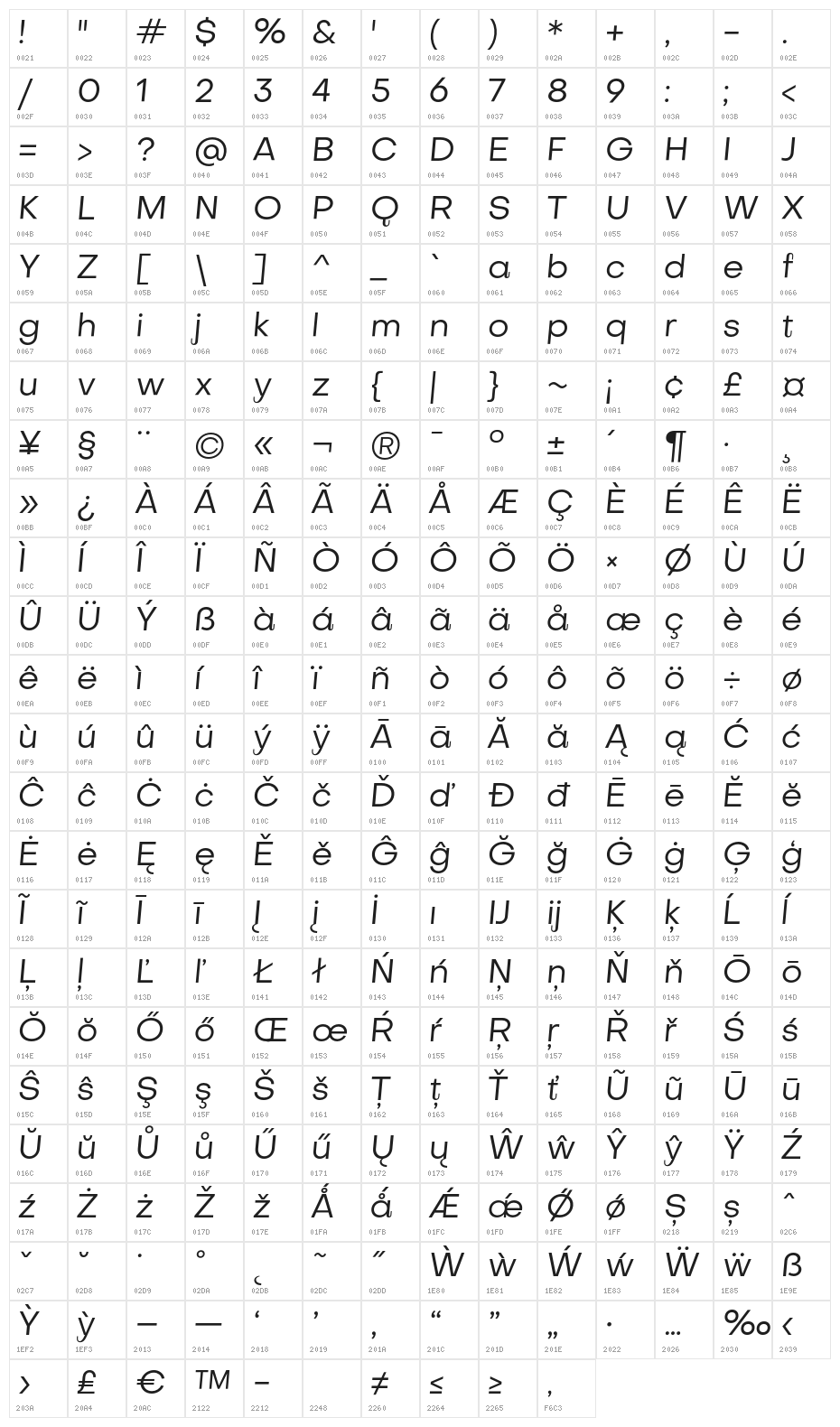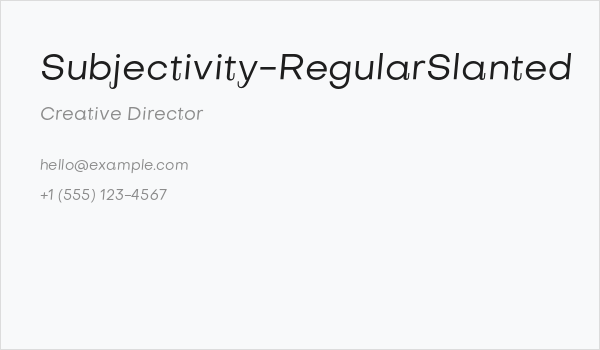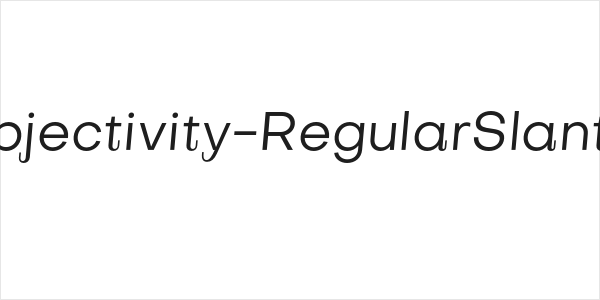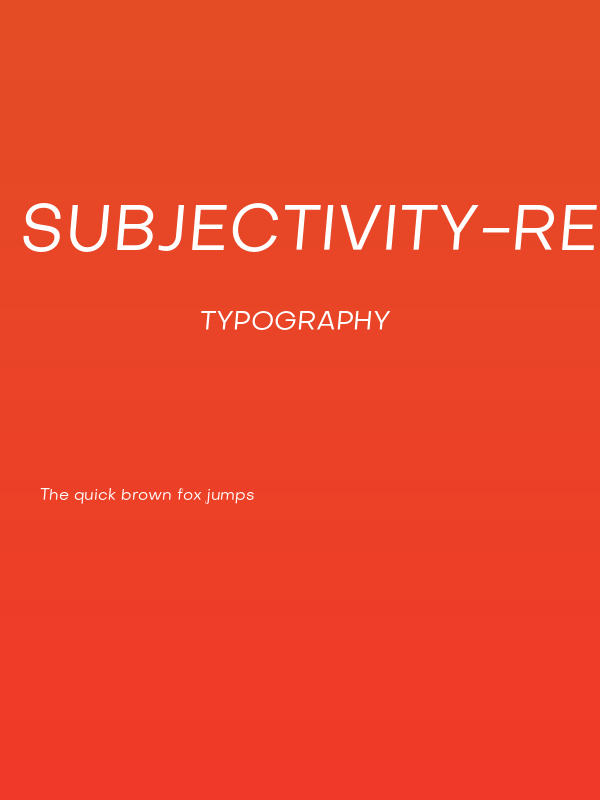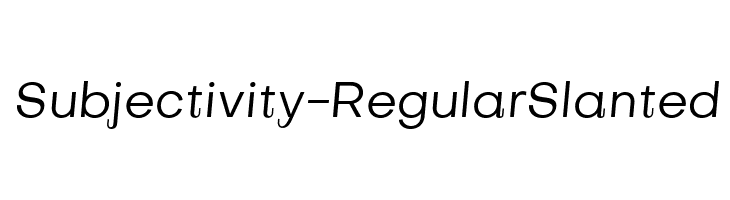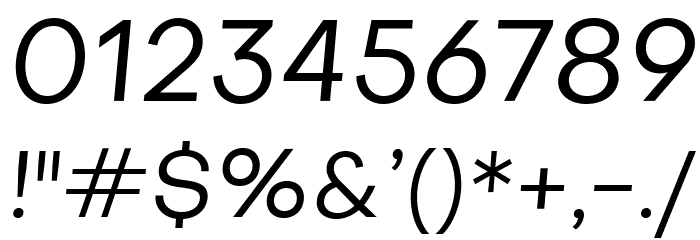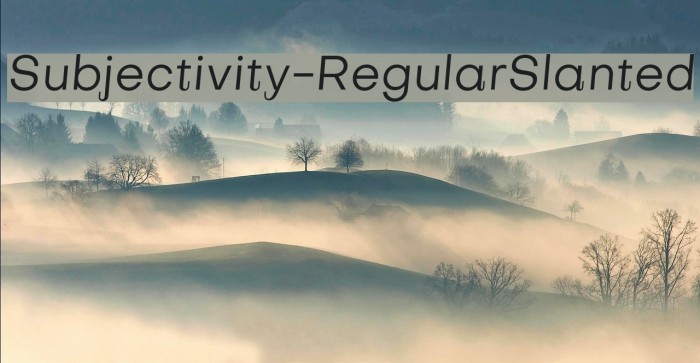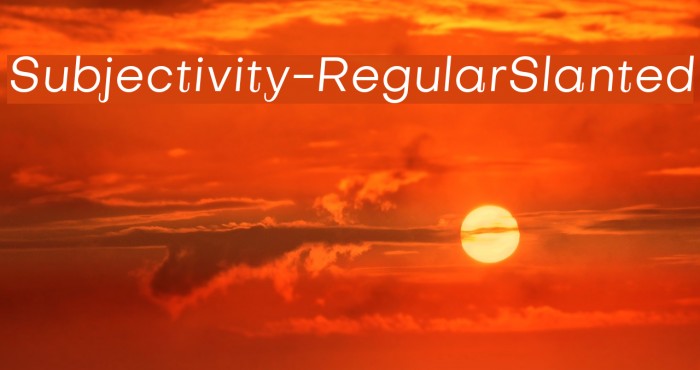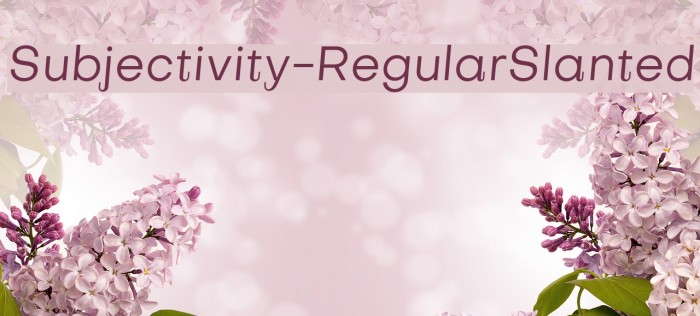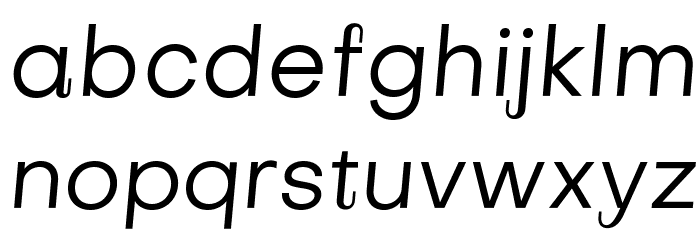
Subjectivity-RegularSlanted Font
Subjectivity-RegularSlanted Description
This font features a clean and modern sans-serif style with a slight slant, giving it a dynamic and forward-moving appearance. The characters are evenly spaced with a consistent stroke width, providing a harmonious and balanced look. The uppercase letters are bold and assertive, while the lowercase letters maintain a friendly and approachable feel. The numerals are clear and easy to read, making them suitable for various applications. Special characters are well-defined, ensuring versatility in design projects. Overall, this font exudes a contemporary and professional vibe, making it ideal for modern branding and communication.
| Proposed Projects | Ideal for branding, advertising, digital content, and editorial design. |